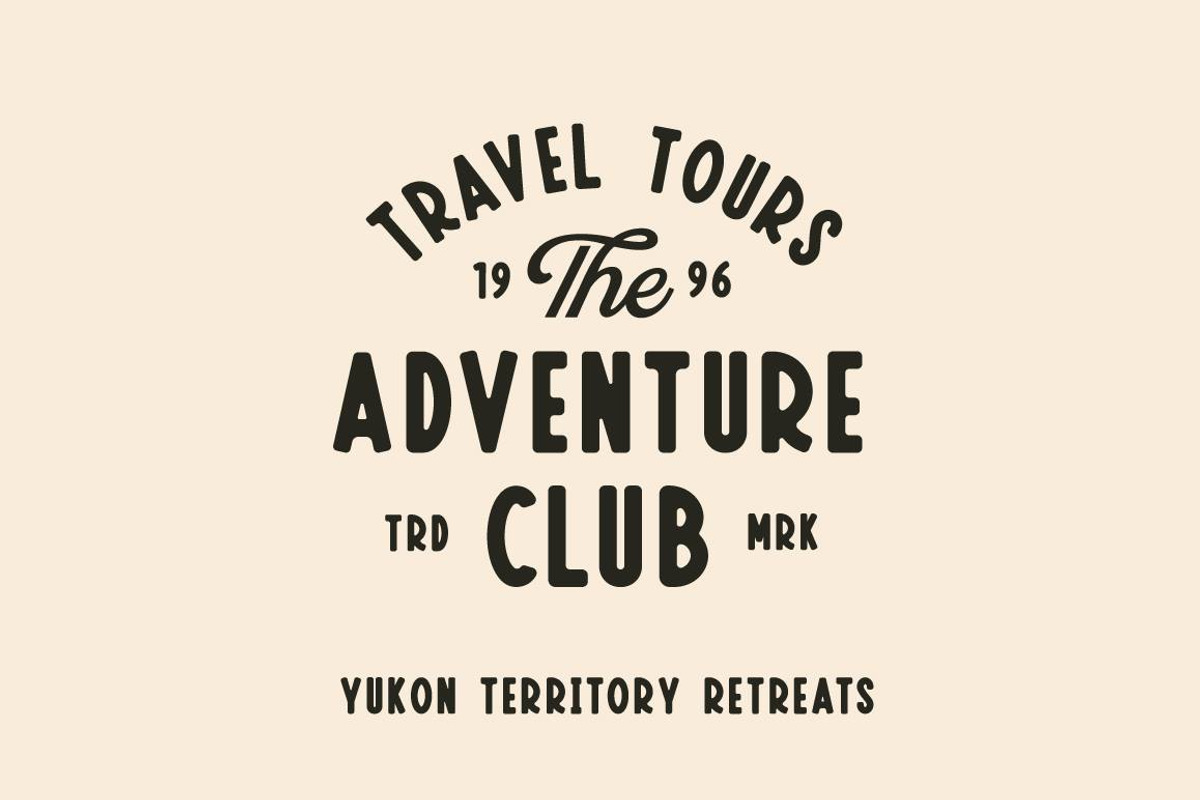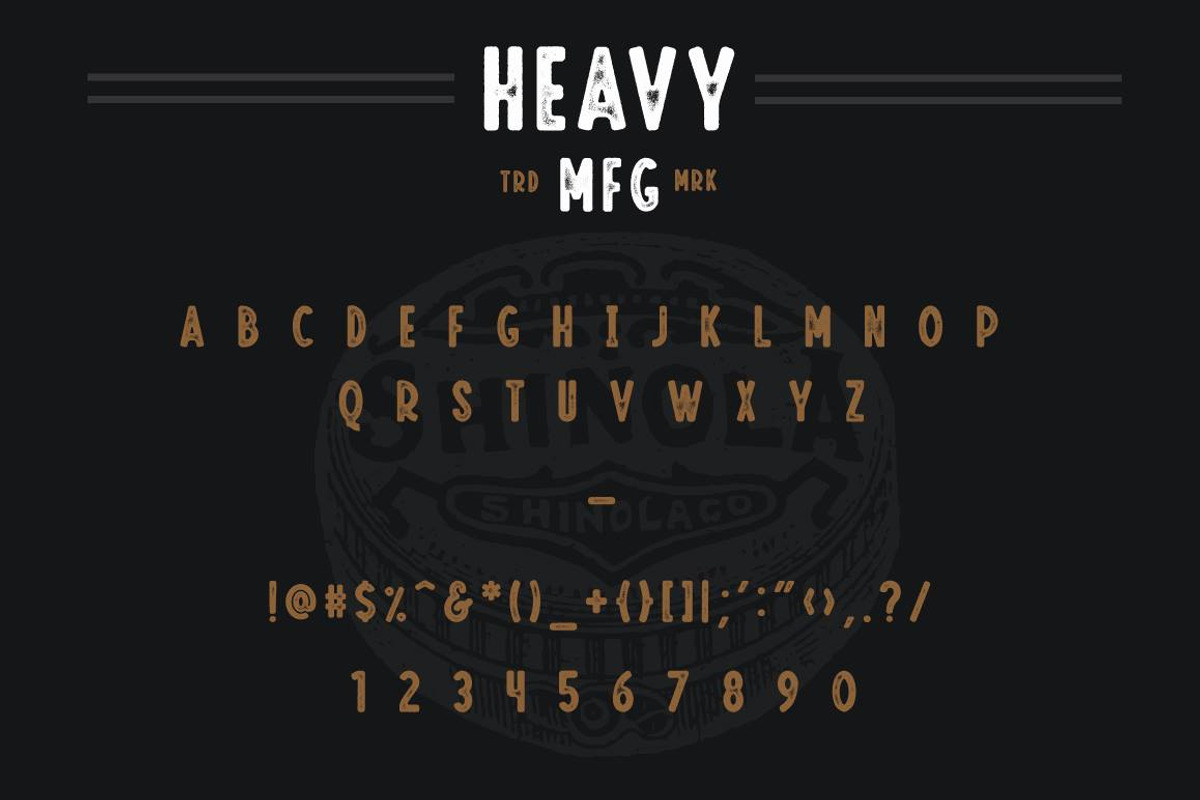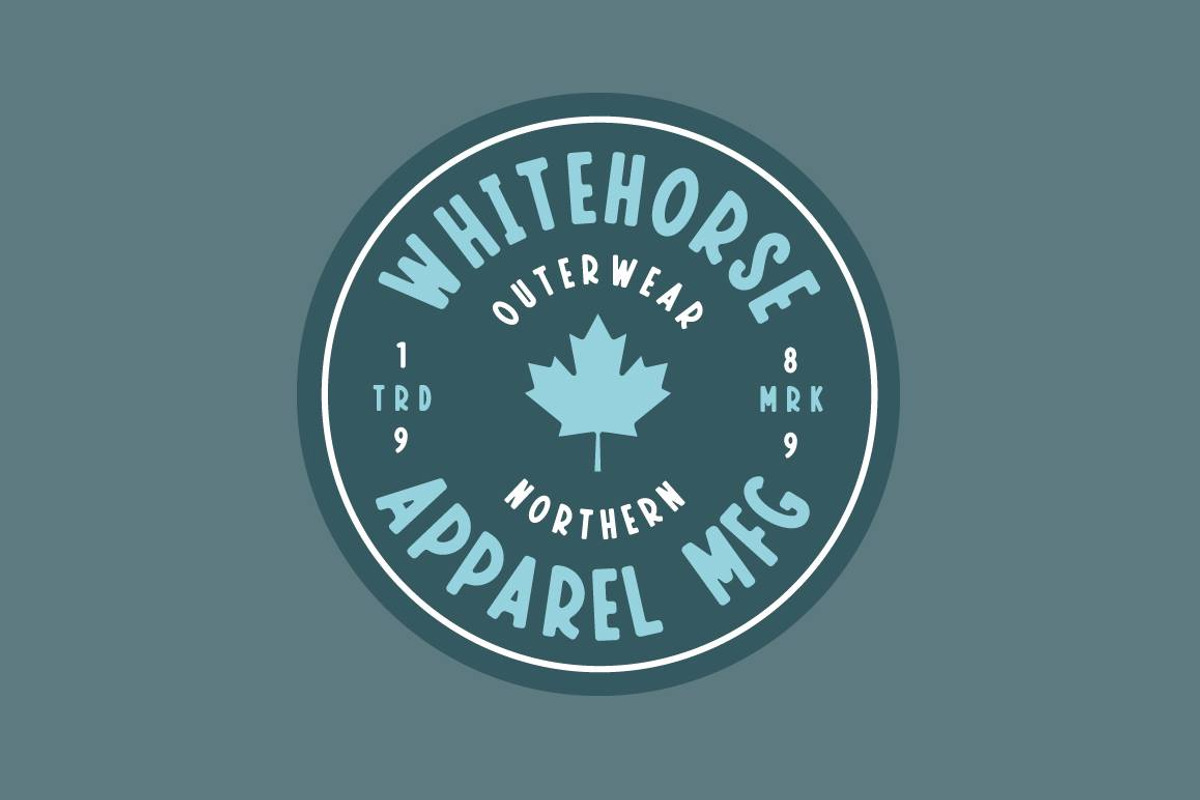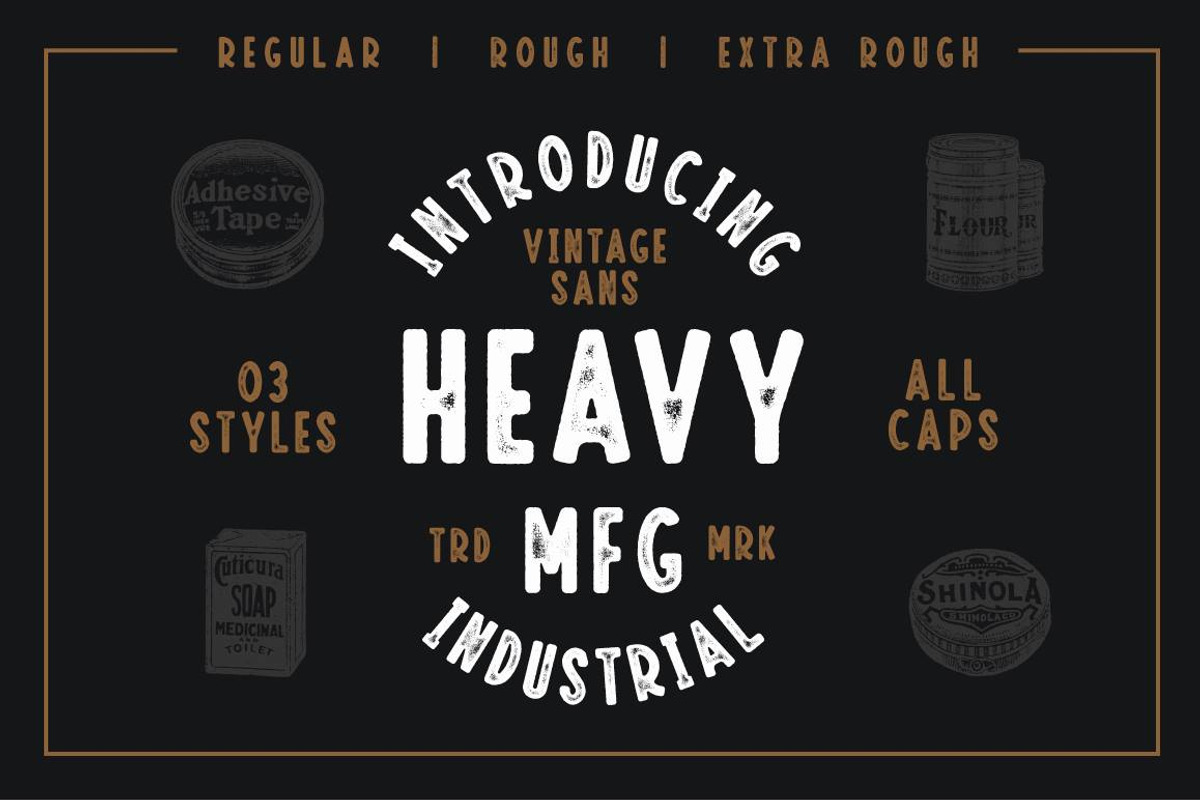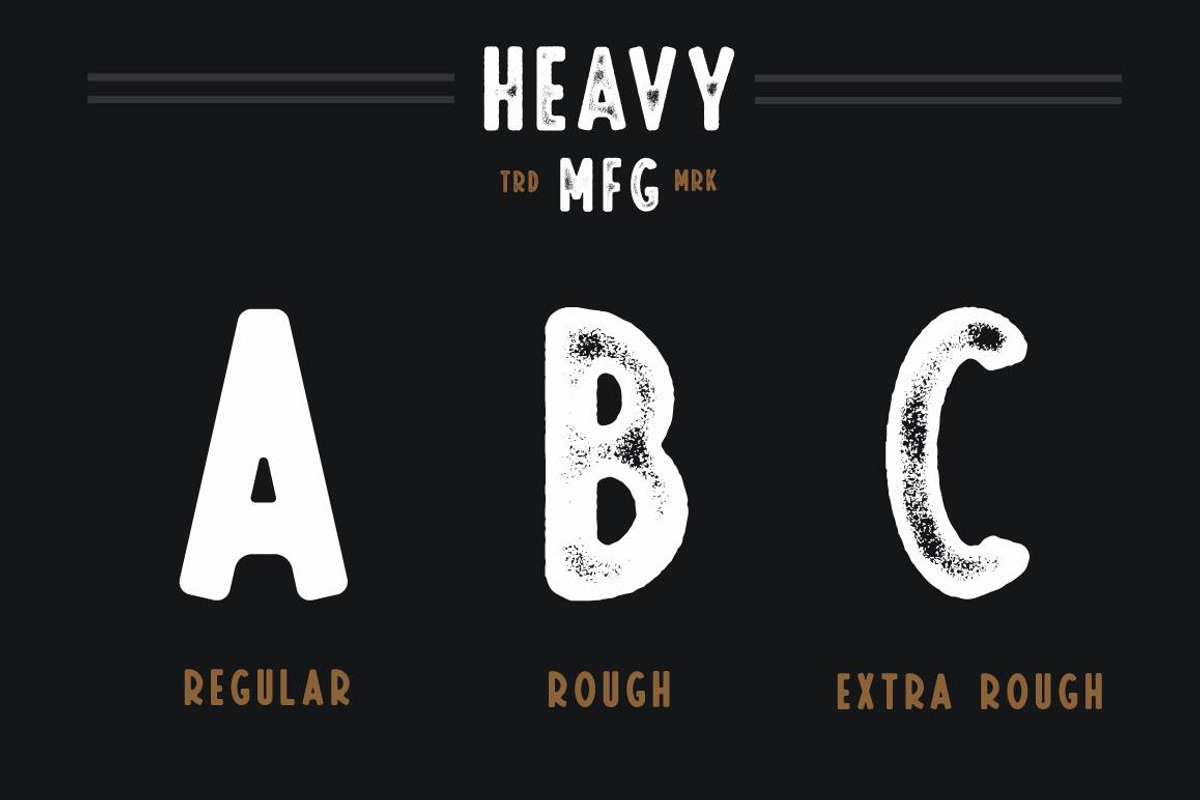
Heavy MFG - Vintage Sans Serif Fonts
Heavy MFG is a vintage press inspired sans serif which features 3 styles: Regular, Rough & Extra Rough. Perfect for capturing the vintage aesthetic in any upcoming project. Use Heavy MFG for creating vintage industrial badges, lockups, logos & labels. Features multilingual characters.
Heavy MFG Extra Rough
- Features multilingual characters.